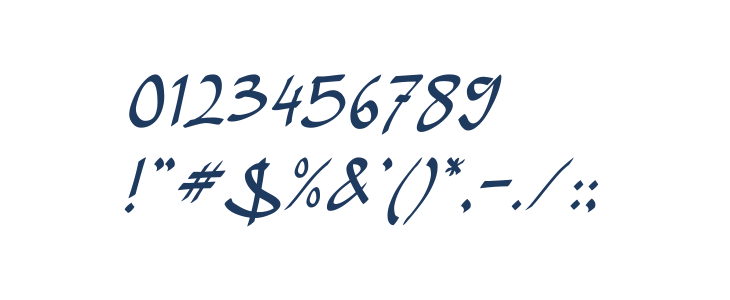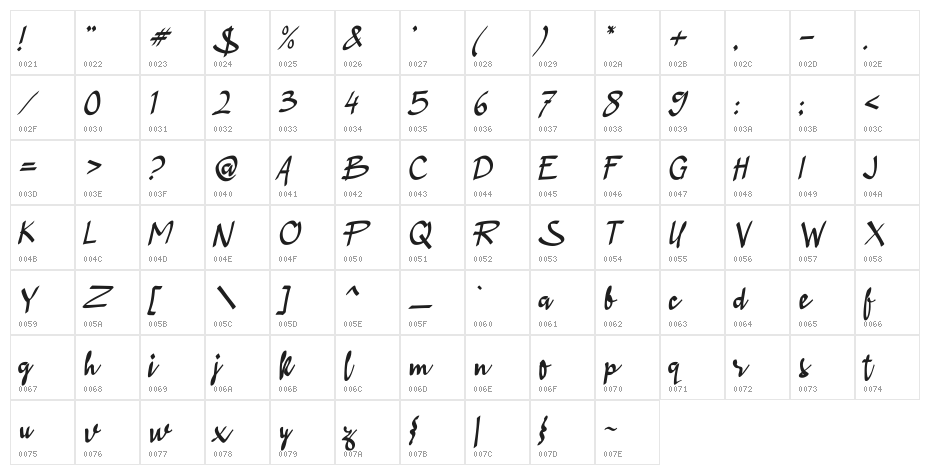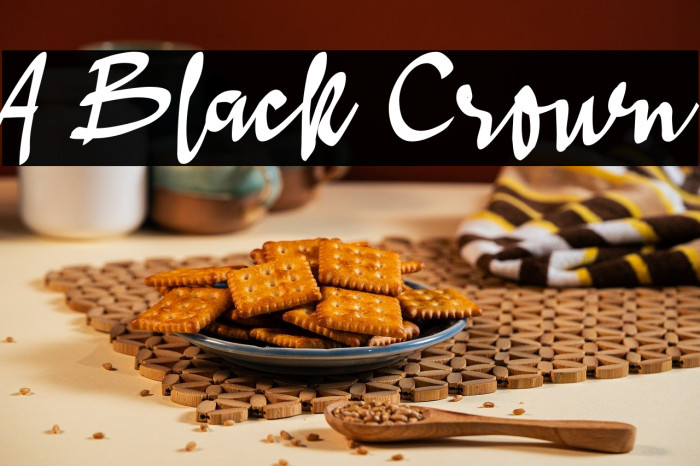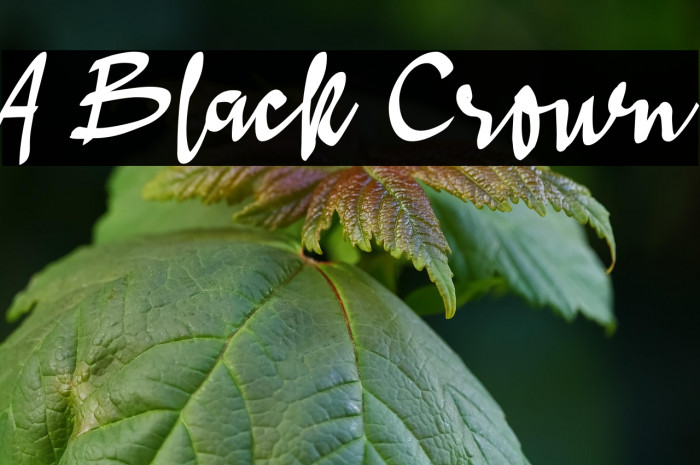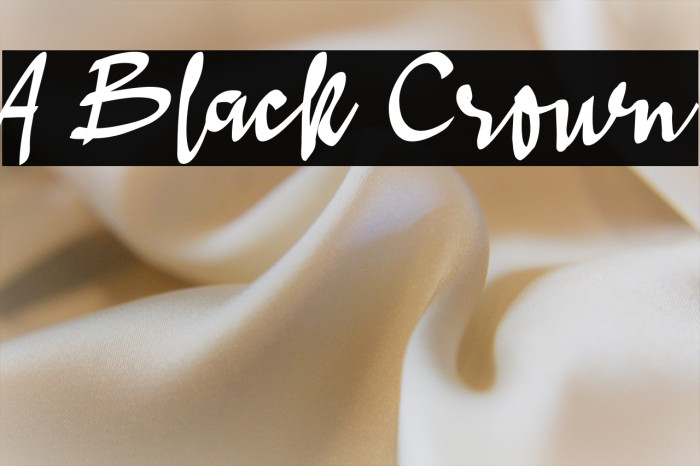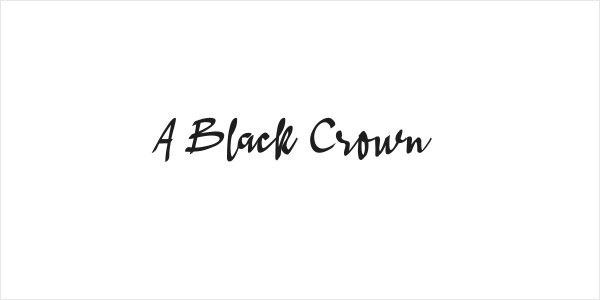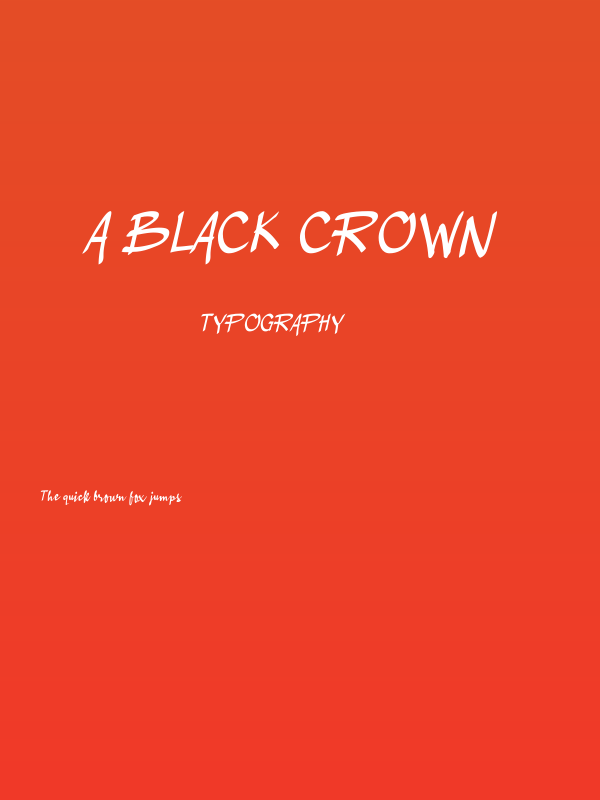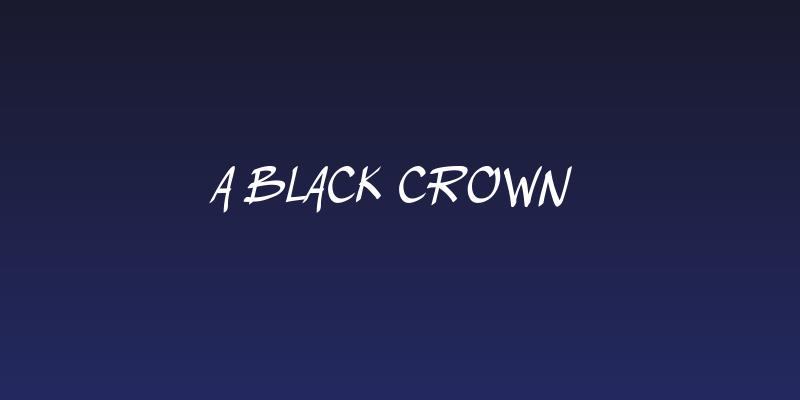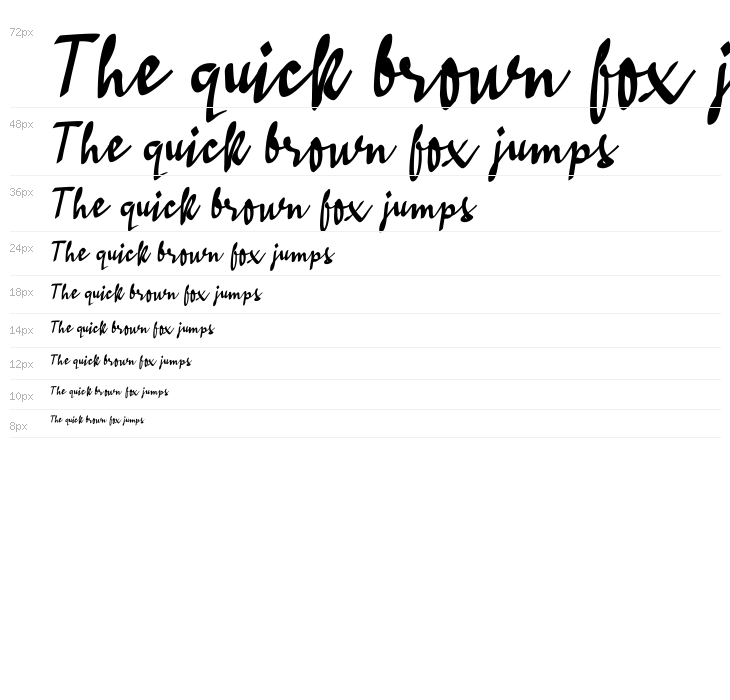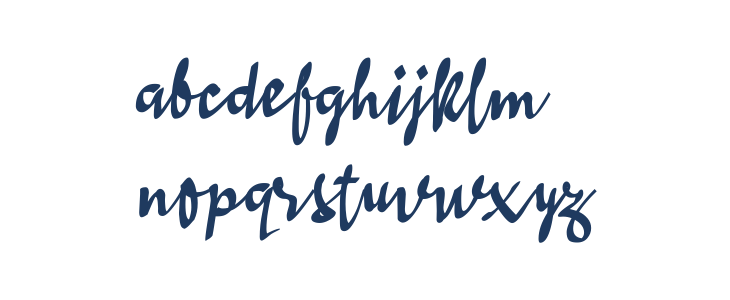
A Black Crown Font
A Black Crown Description
This font features a dynamic and expressive style, characterized by its fluid, cursive script that mimics natural handwriting. The uppercase letters are bold and slightly slanted, giving a sense of movement and energy. The lowercase letters maintain a consistent flow, with elegant loops and curves that enhance its handwritten appearance. The numerals are distinct and easily readable, while the special characters complement the overall aesthetic with their stylish flair. This font's design is both artistic and legible, making it suitable for a variety of creative applications.